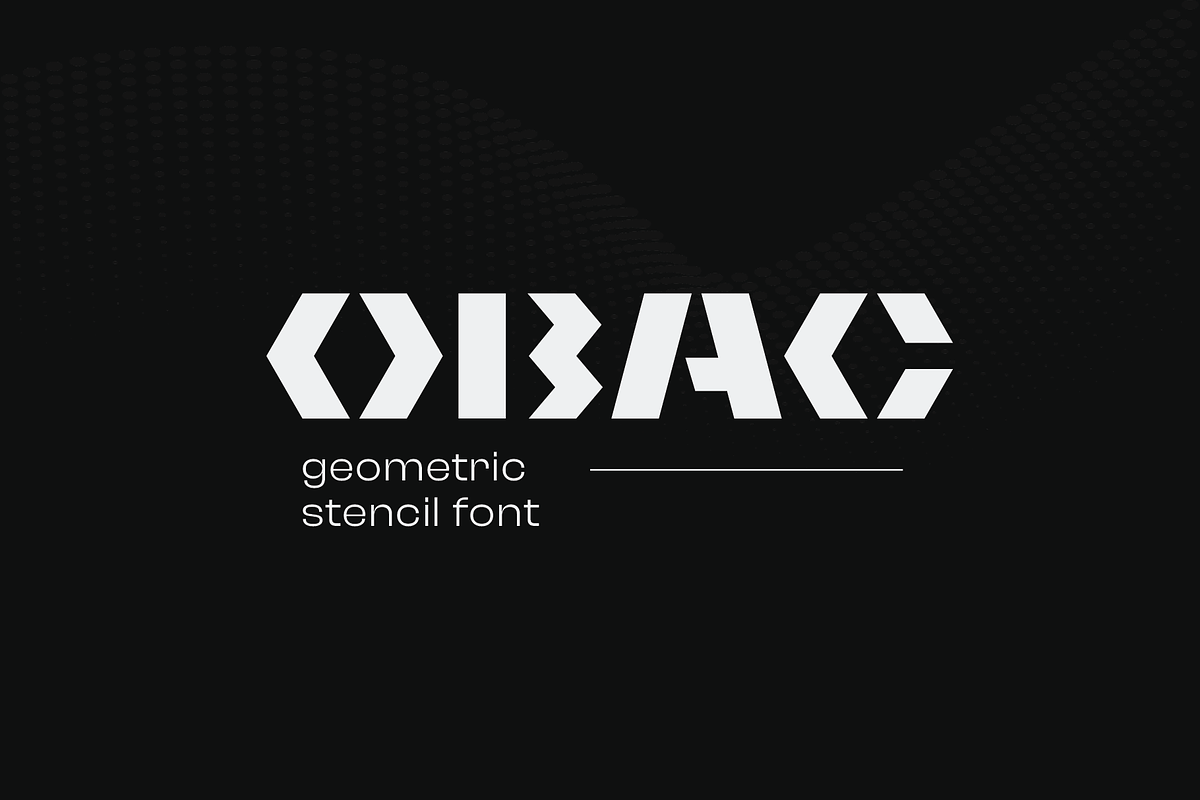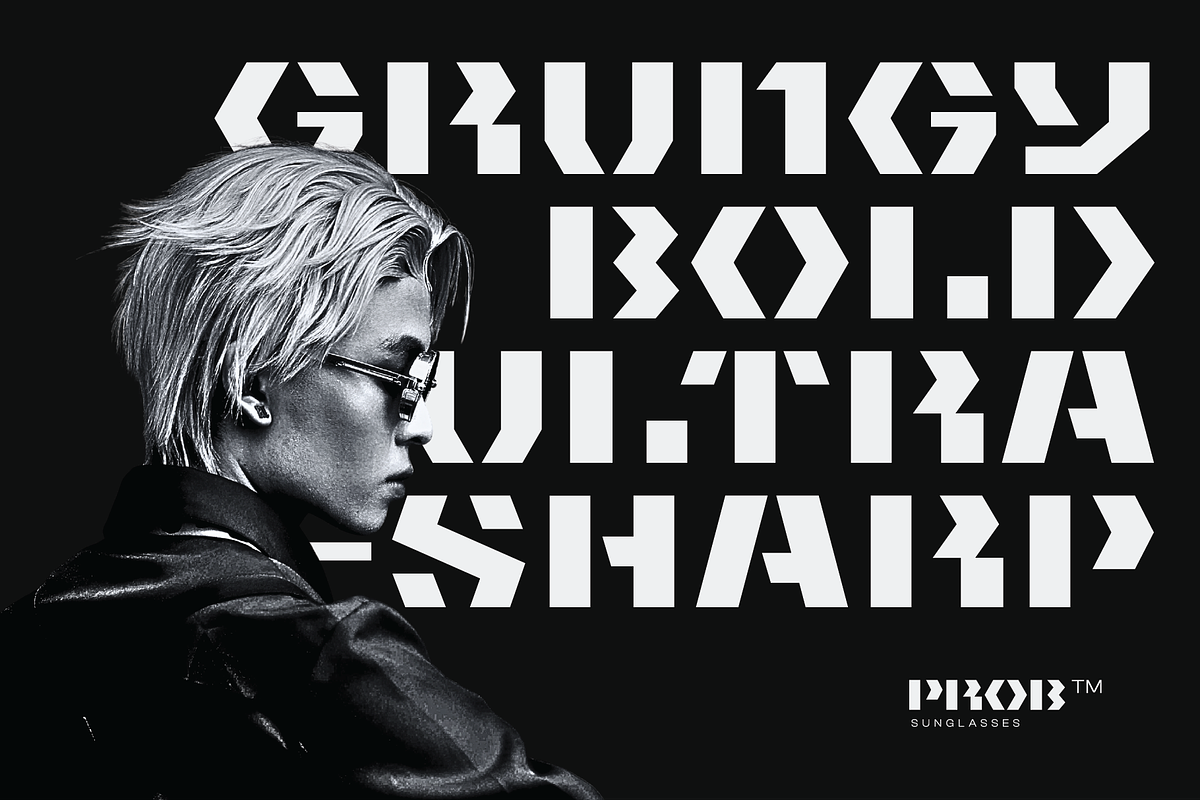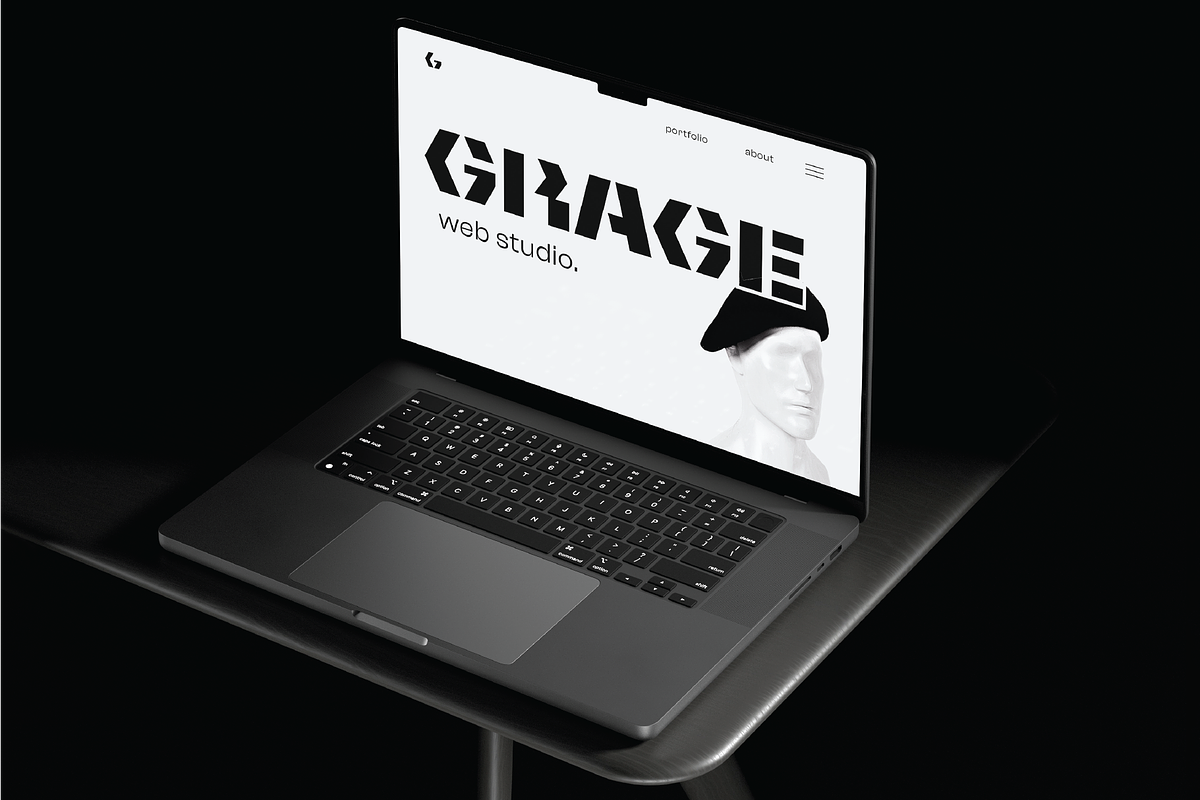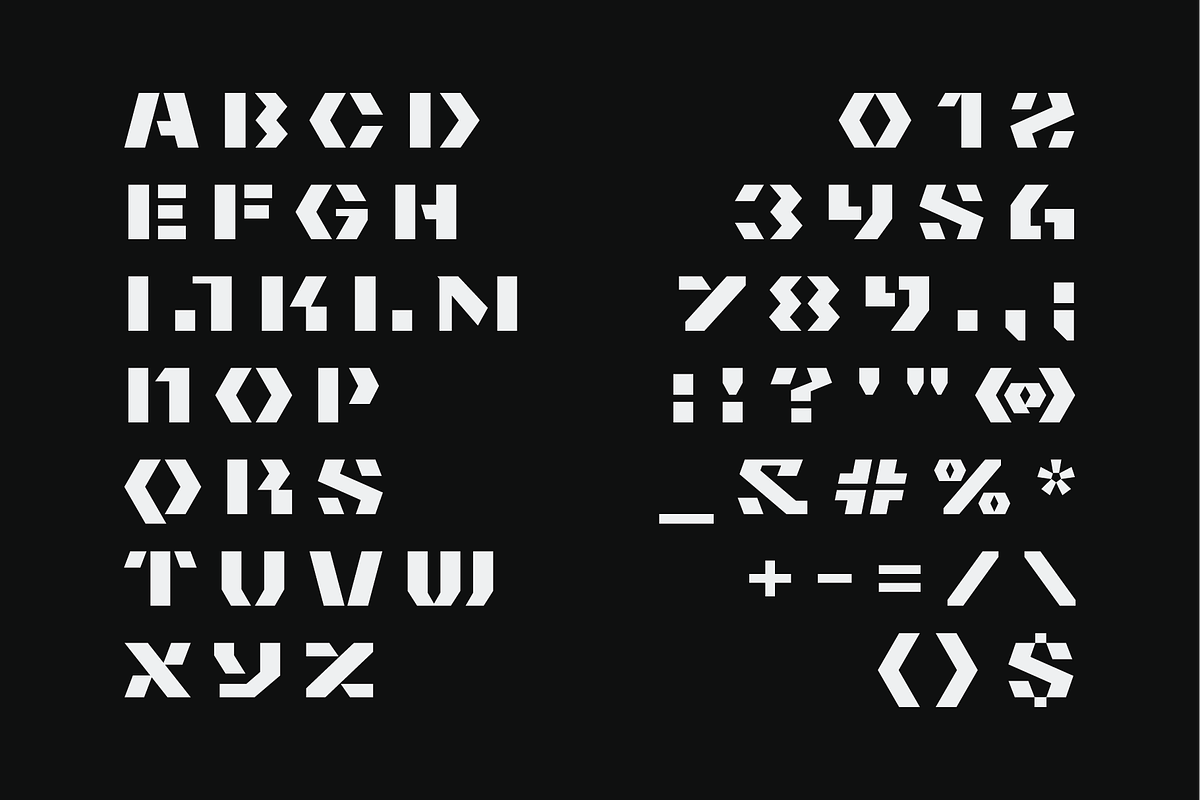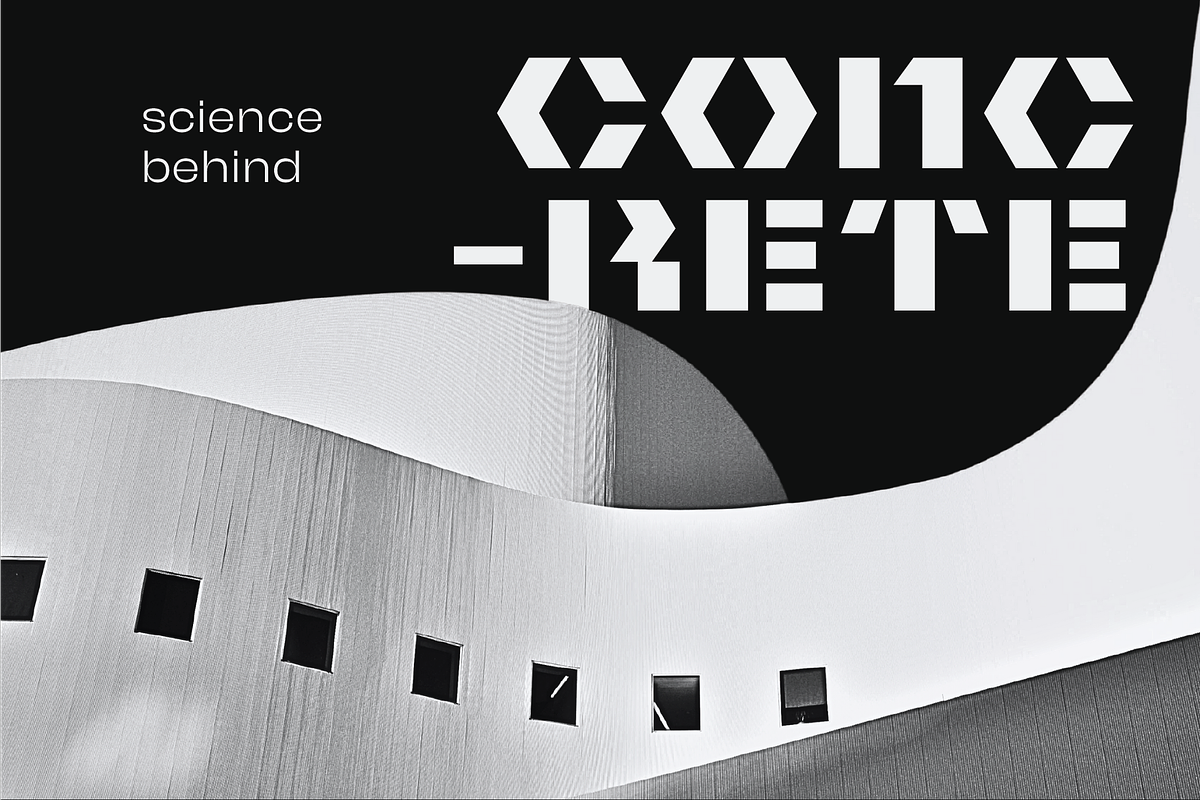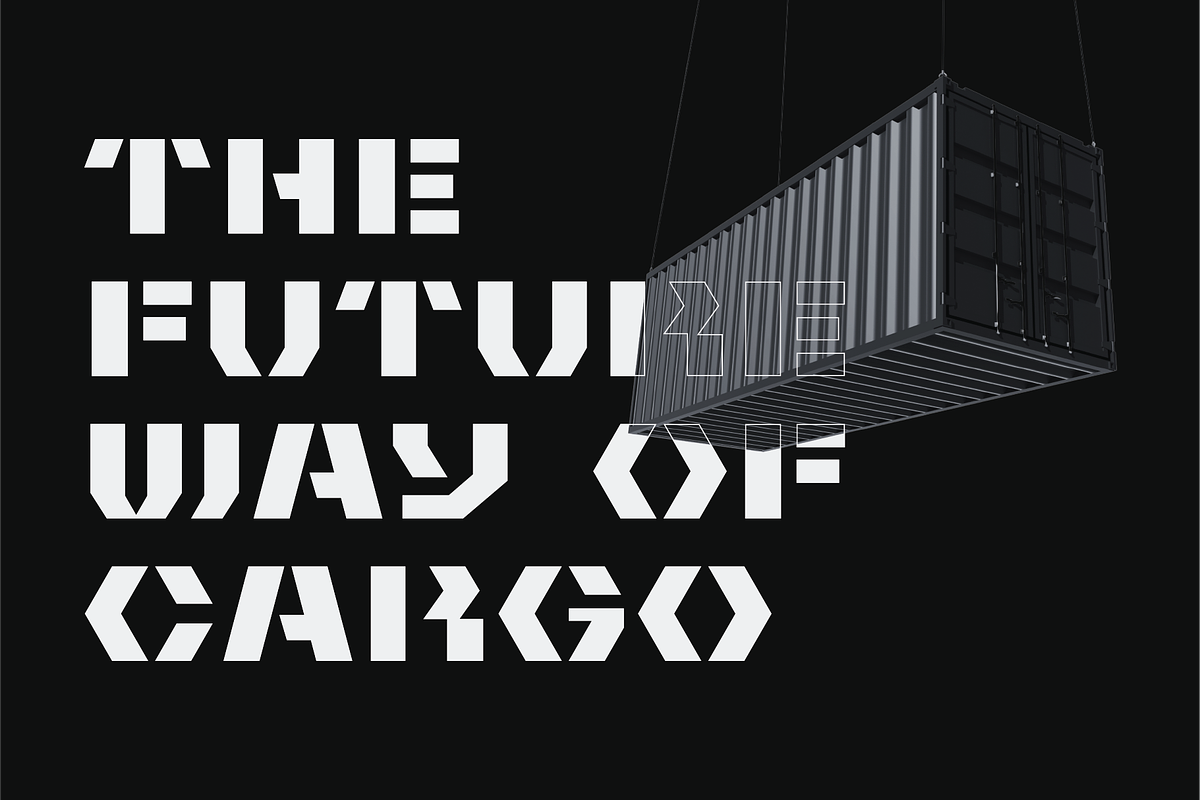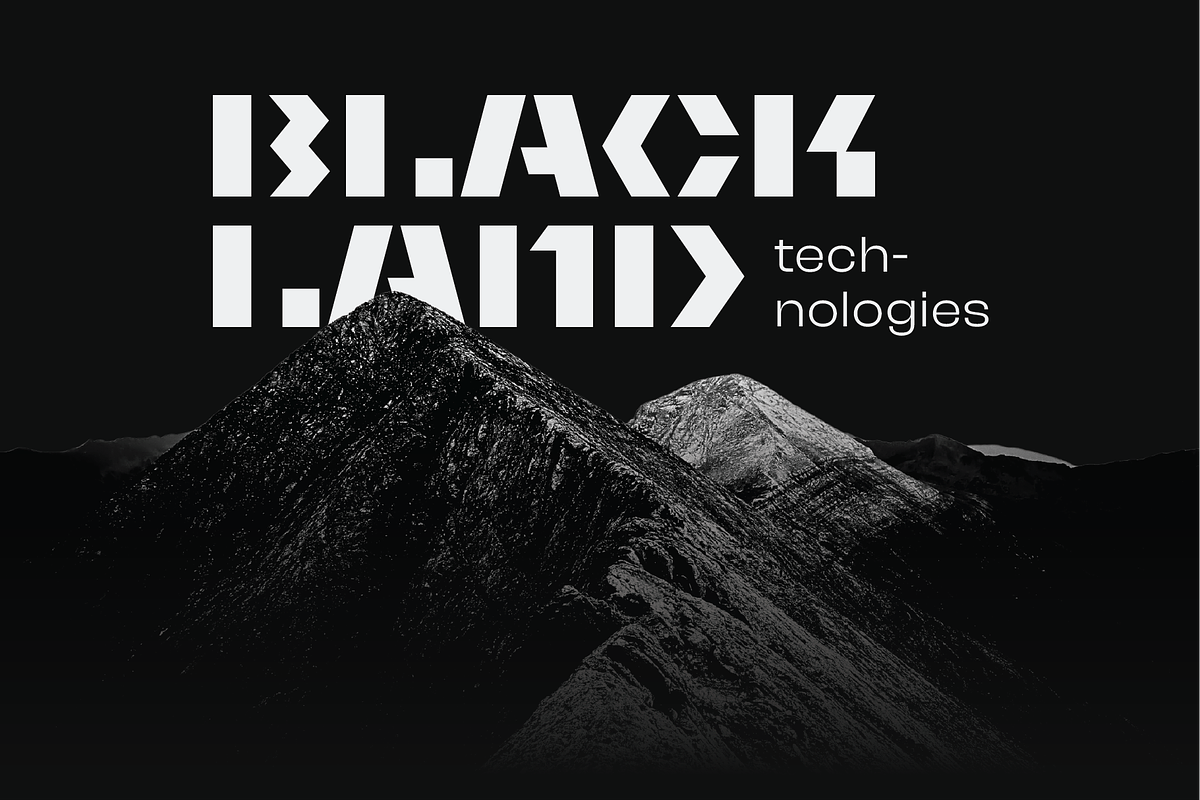
Obac-Geometric Stencil Display Font
Obac is a bold geometric font that delivers a futuristic vibe. Obac display font is designed for maximum impact. Its sharp angles, clean lines, and modular stencil cuts create a striking industrial aesthetic that’s perfect for technology, cyberpunk, gaming, and military-inspired designs. Ideal for logos, posters, headlines, packaging, and branding projects, Obac delivers a strong, modern presence that stands out in any medium. This display font combines geometric precision with rugged stencil styling, making it both versatile and highly distinctive.